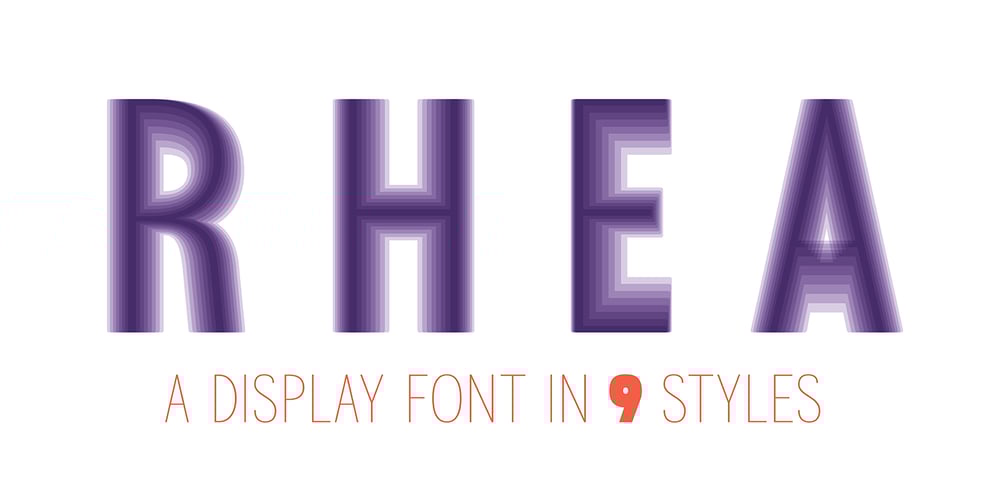
Rhea
Rhea font
Rhea Font Family was designed by Dominik Krotscheck and published by Dominik Krotscheck. Rhea contains 9 styles and family package options. Rhea is a family of condensed all-caps sans serif fonts. It is equipped with a bunch of accented characters. There are alternate letterforms for M & W, easily accessible via opentype features. Due to its nine styles, ranging from an elegant thin to a blatant fat, it gives you the opportunity to easily define a hierarchy between your headlines or the content on your poster, etc.